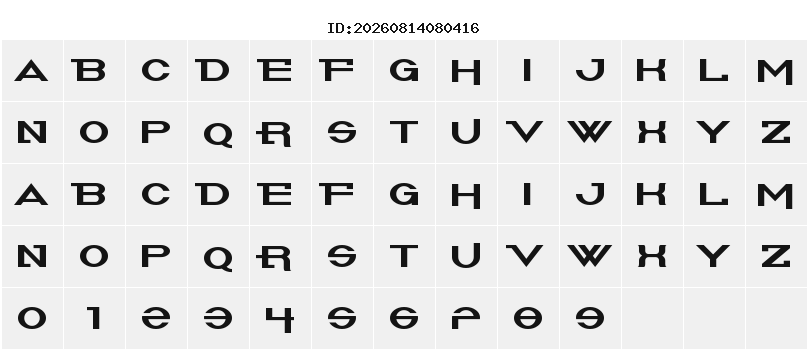
Summoners Preview
• Font Name: Summoners
• Full Font Name: Summoners
• Version: Version 1.00 March 1, 2016, initial release
About Summoners.otf
Summoners.otf is a modern, elegant sans-serif font designed for ultimate readability and visual harmony. Perfect for branding, headlines, web design, and print materials.